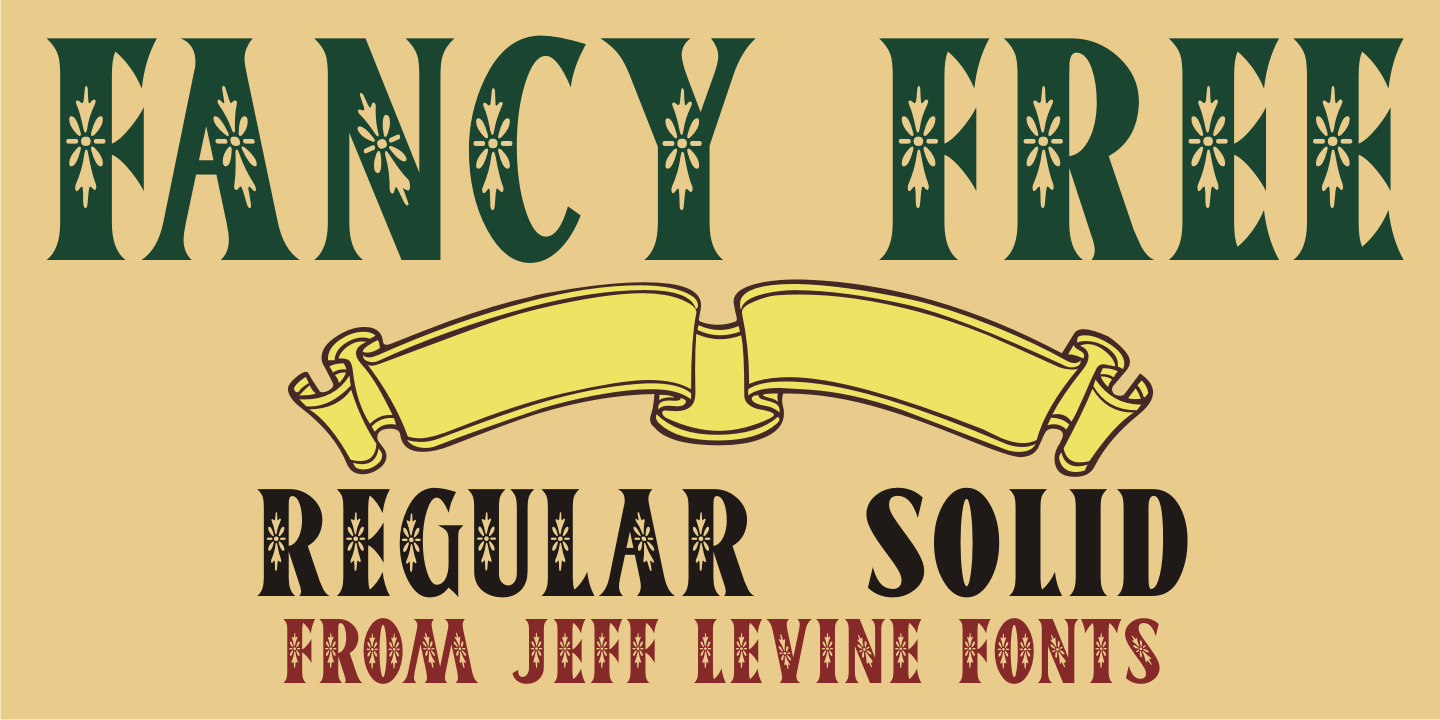
Fancy Free
Sometimes a wonderful lettering design comes from a source that is less than desirable.
Up until the late 1920s, it was a popular habit in American songwriting to use African Americans as the topic of compositions using denigrating themes, words and even exaggerated character illustrations on the covers of the published sheet music.
One such example of what was considered "entertainment" for its time was a piece entitled "Little Black Me".
While this now socially and morally unacceptable piece of forgettable tripe is collected by some only for the historical documentation of the times they reflected, one good "positive" came out of this negative chapter of our country's musical heritage:
The beautiful floral ornamented letters in the song's title has yielded Fancy Free JNL.
Originally hand-lettered on an arc, these spurred Roman letters have been re-drawn, and are offered in both the regular design and a companion version with the ornamentation removed for lettering that is less ornate.